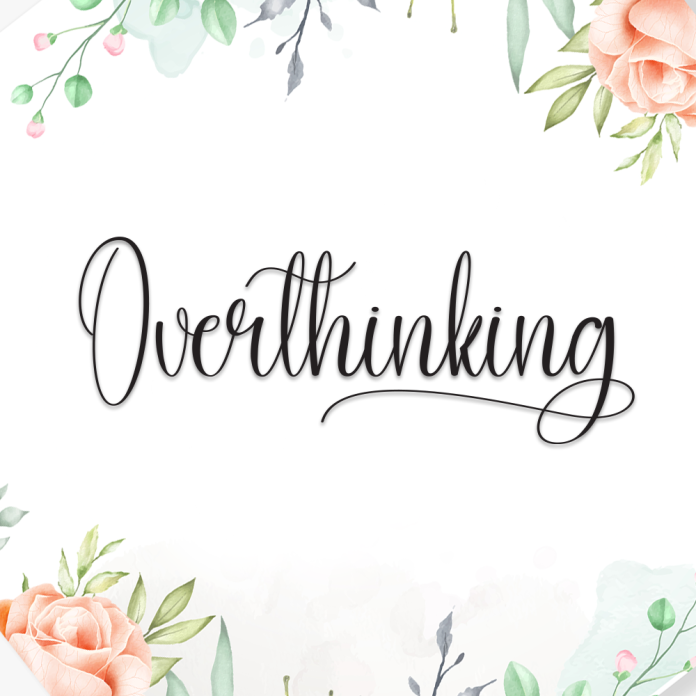
Overthinking is a raw and expressive handwriting font that captures the feeling of wandering thoughts and heartfelt moments. Its slightly messy yet authentic strokes reflect emotion, making it perfect for personal, poetic, or reflective designs.
Ideal for quotes, journal-style graphics, mental health awareness projects, blog titles, and personal branding, Overthinking adds a touch of real human vulnerability and sincerity to your creative work.
Emotional and natural handwritten style
Free-flowing letterforms with a personal, imperfect feel
Great for expressive design, social media, quotes, and storytelling
Speak from the heart with Overthinking, the handwriting font that turns feelings into words.